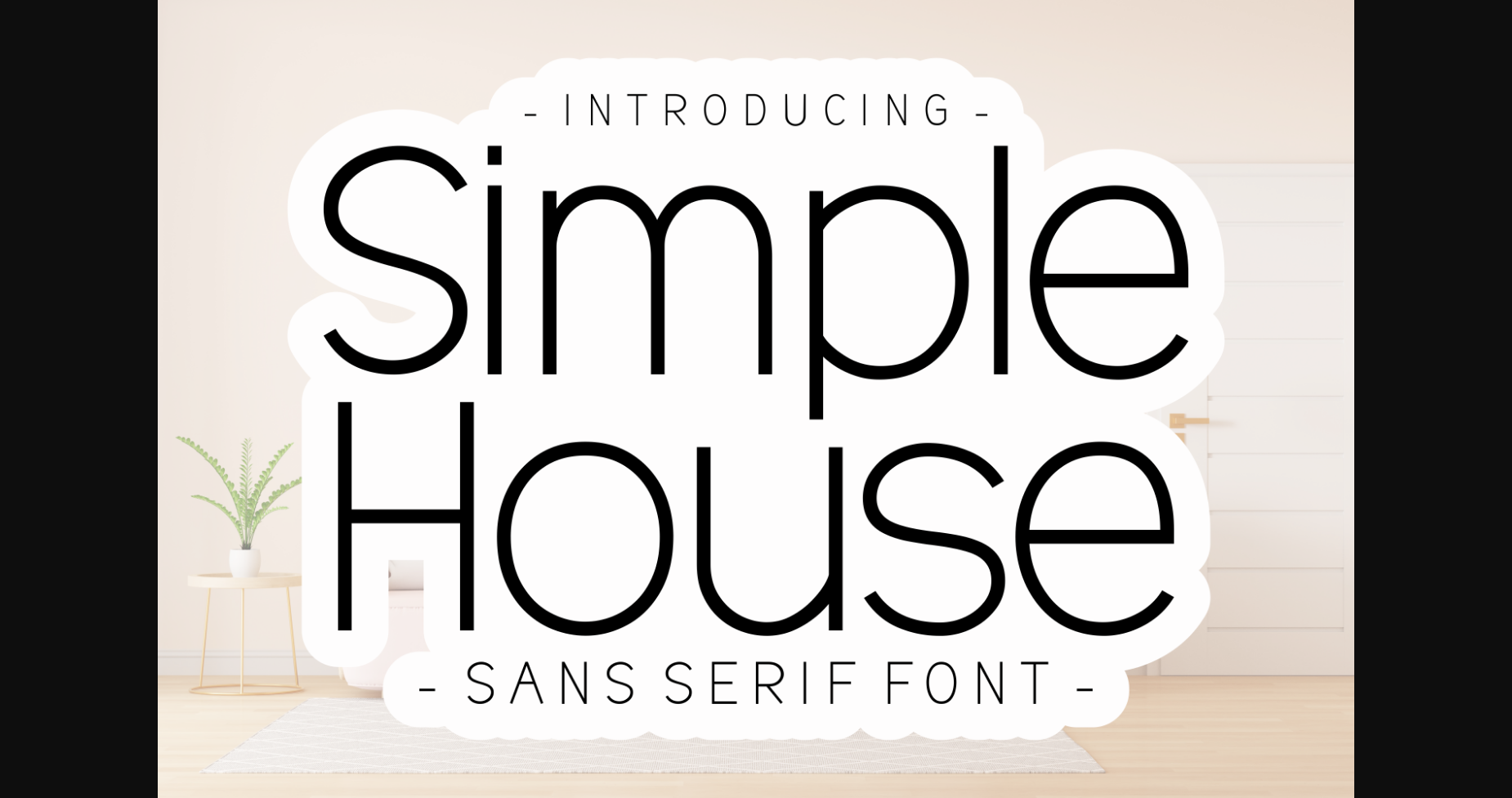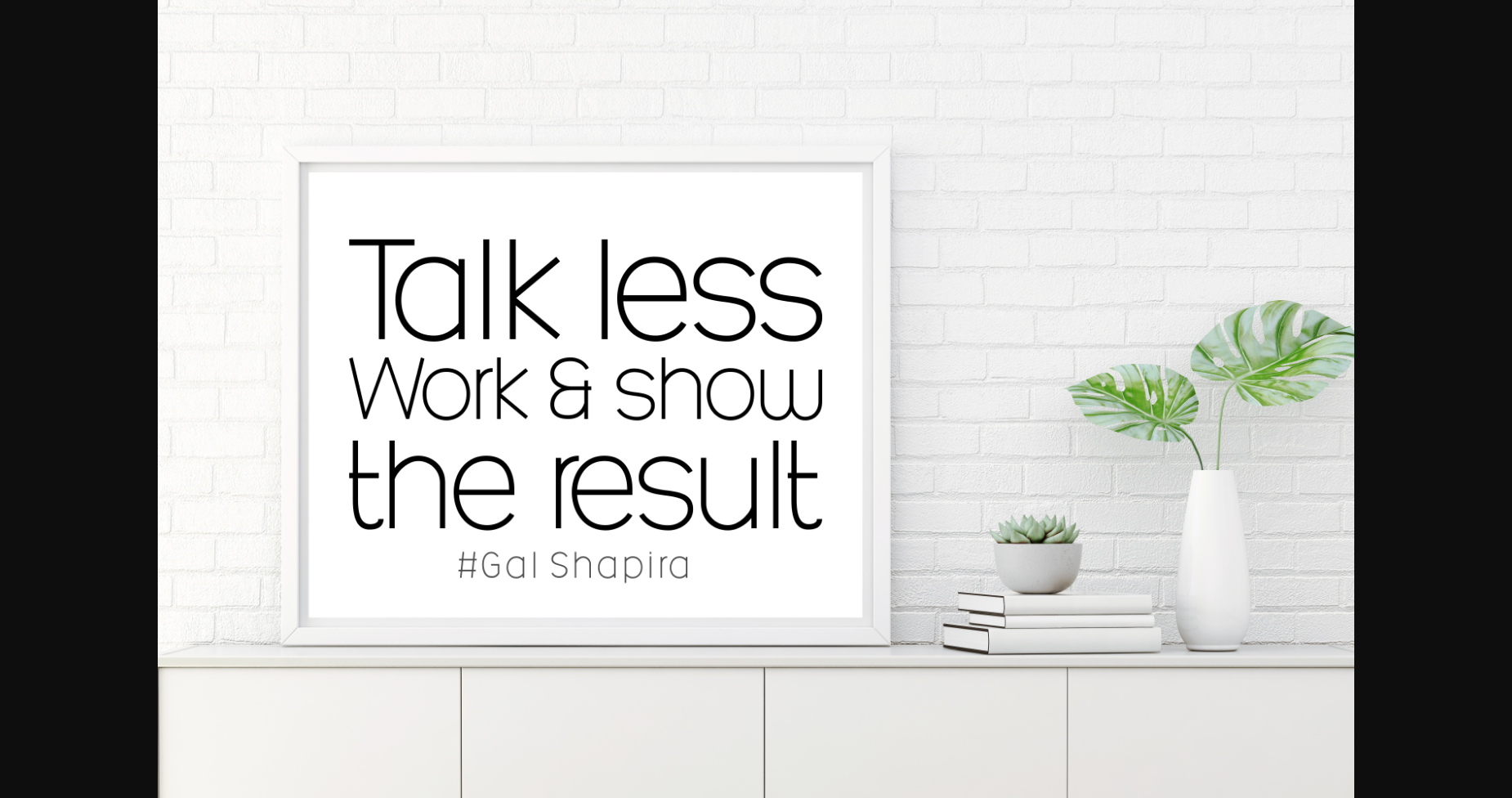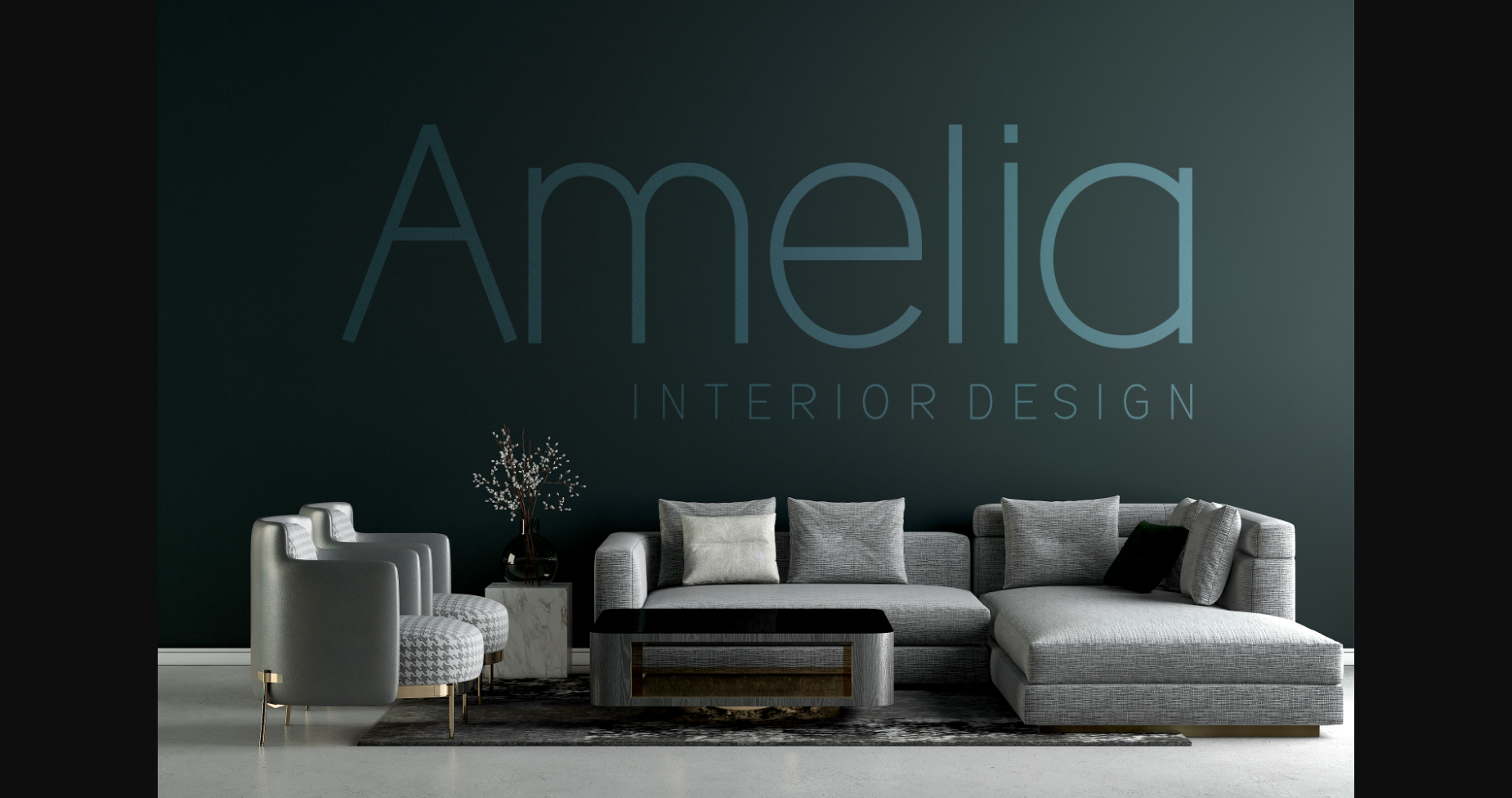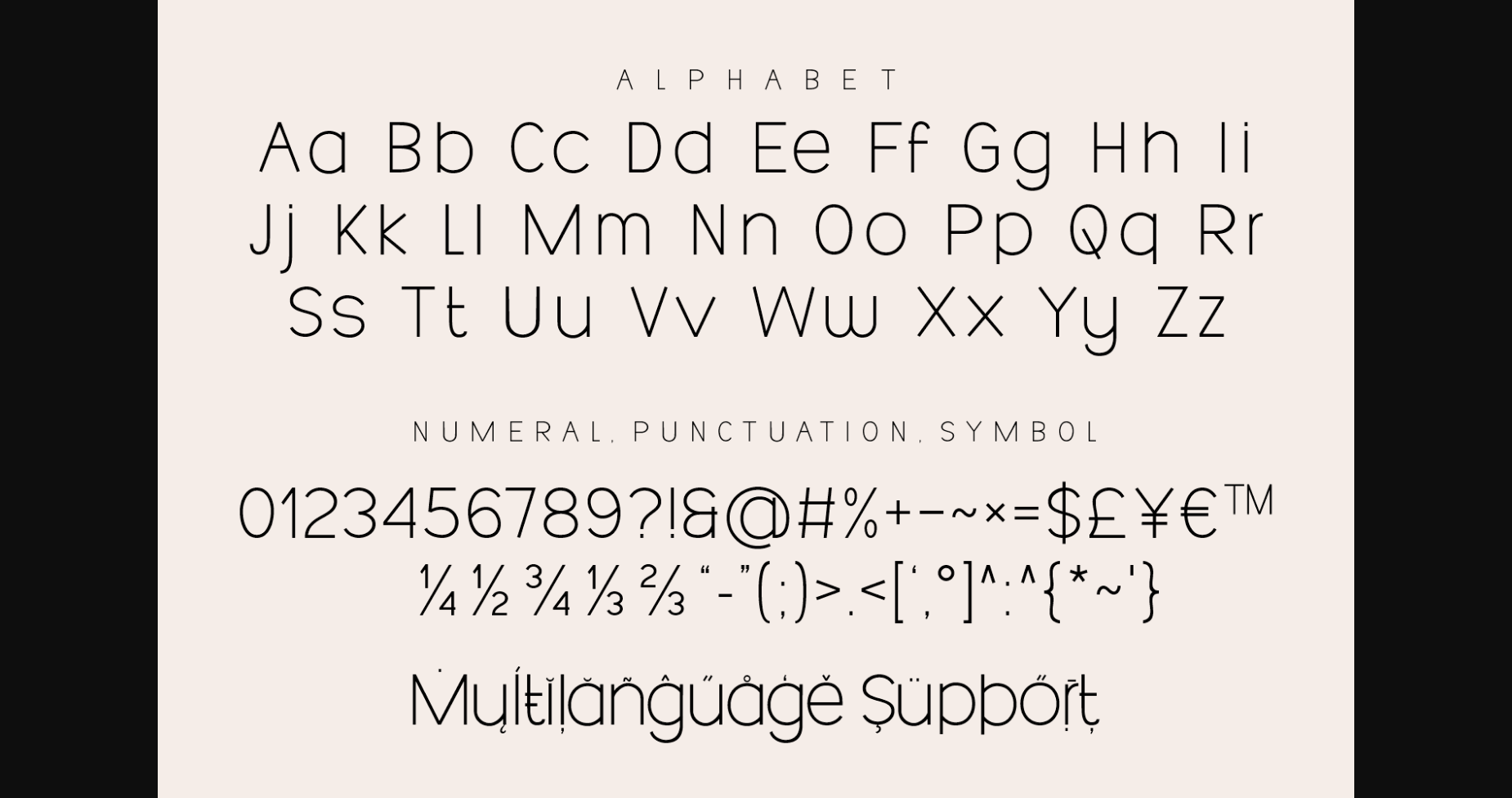
Simple House Font
About Simple House Font
The Simple House is a beautiful and stylish sans serif font. With its smooth line and soft edges, it will bring that elegant touch to any projects. This font is perfect to use for interior designs for your home, designs for prints, digital designs and much more.